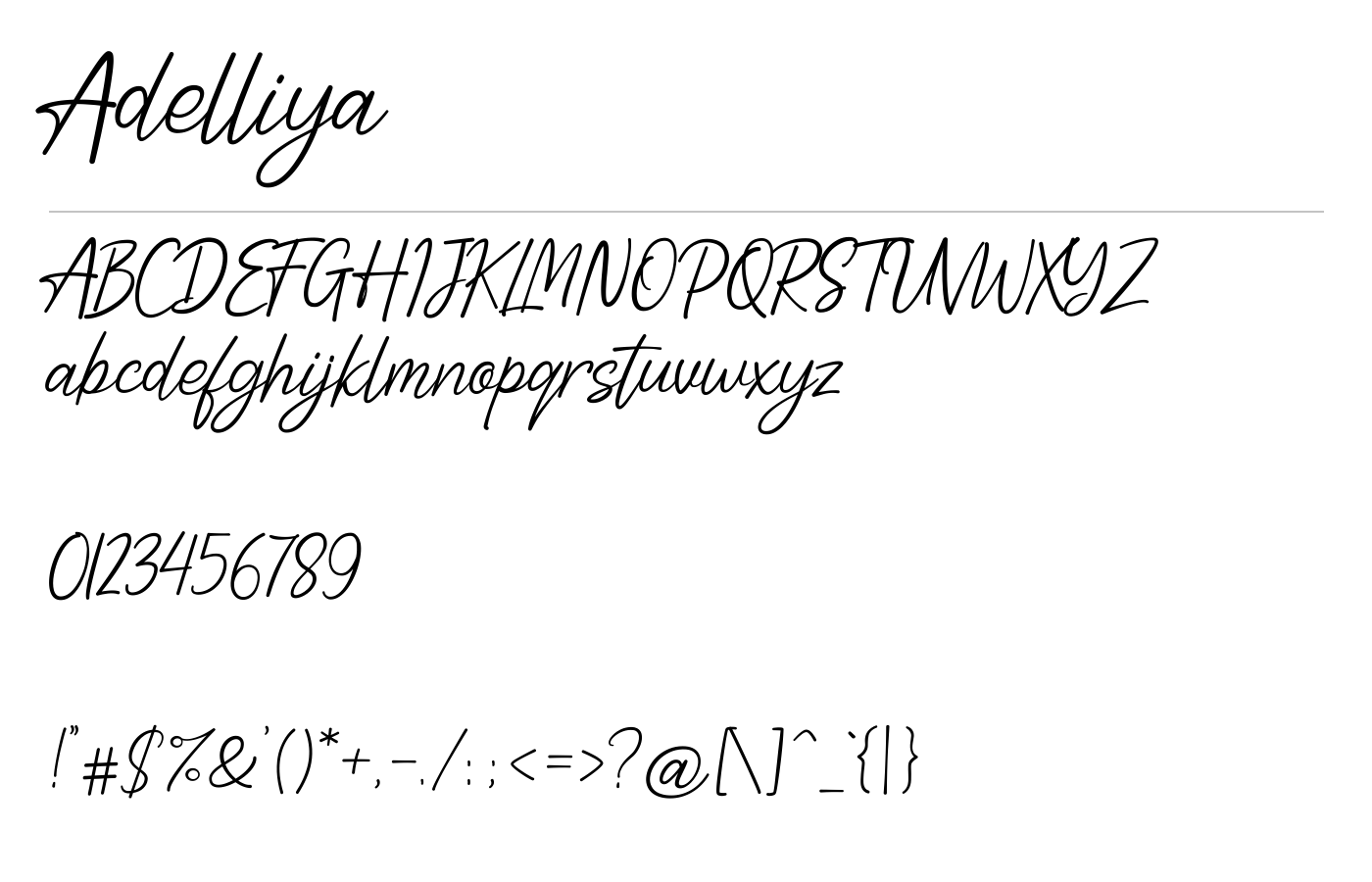
Adelliya is a delicate, flowing script font characterized by its slender, elegant strokes and handwritten style. Its light weight and graceful curves convey a sense of sophistication and warmth, making it ideal for invitations, branding, and feminine design projects. This font’s airy, smooth letterforms create a personal, stylish feel perfect for adding a touch of charm to both digital and print media.
Adelliya Font
About Adelliya Font
| Font family | Adelliya Font |
| Designer | Weape Studio |